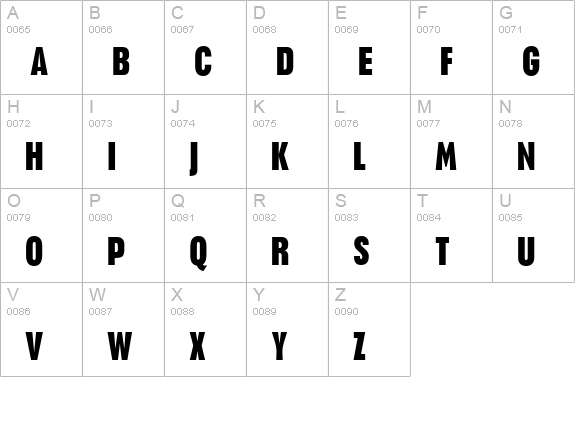
P760-Sans-Regular is the standard, neutral variant in the P760 typeface family \xE2\x80\x94 well suited to general body text, paragraphs, and standard typographic work.
The P760-Sans-Regular font is a modern and versatile typeface that exudes elegance and professionalism. With its clean lines and balanced proportions, this font is ideal for a wide range of design projects, from branding and advertising to digital applications and print materials. The P760-Sans-Regular font offers a timeless appeal that is sure to enhance the visual impact of any project. What makes the P760-Sans-Regular font even more appealing is that it is completely free to download at FontsMarket.com. This means that designers and creatives can easily access this high-quality typeface without any cost, making it a valuable asset for any creative endeavor. Whether you are a seasoned designer or just starting out, the P760-Sans-Regular font is a must-have addition to your font collection. Download it today and elevate your designs with this sophisticated and stylish typeface.